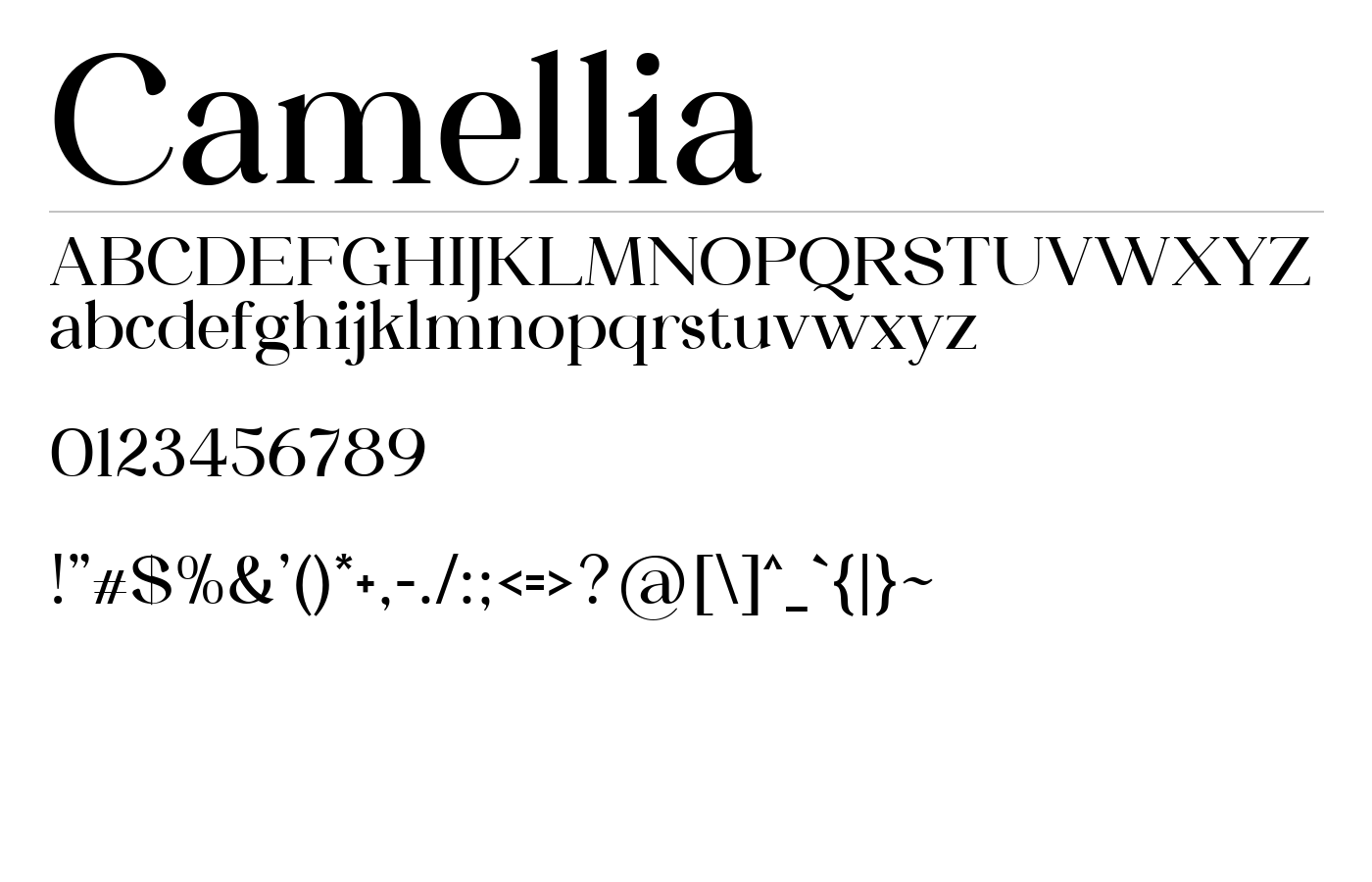
Camellia is an elegant serif font with a refined, high-contrast design that exudes sophistication and timeless charm. Its classic letterforms, featuring delicate serifs and graceful curves, make it ideal for luxury branding, editorial layouts, and stylish headlines where a polished and professional appearance is desired. This font shines in contexts that require a blend of traditional beauty and modern clarity.
Camellia Font
About Camellia Font